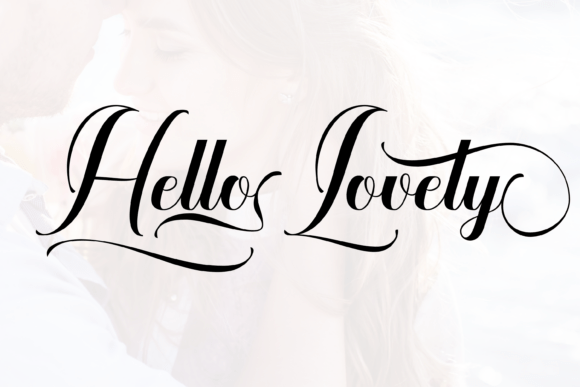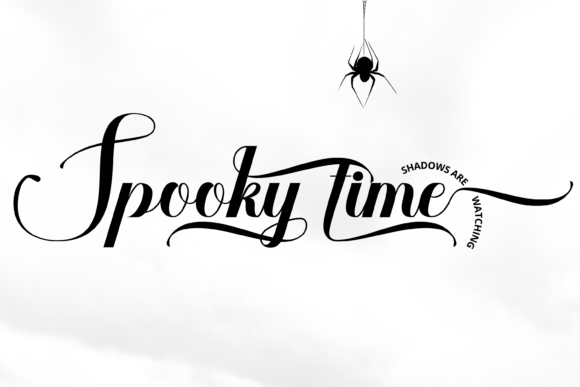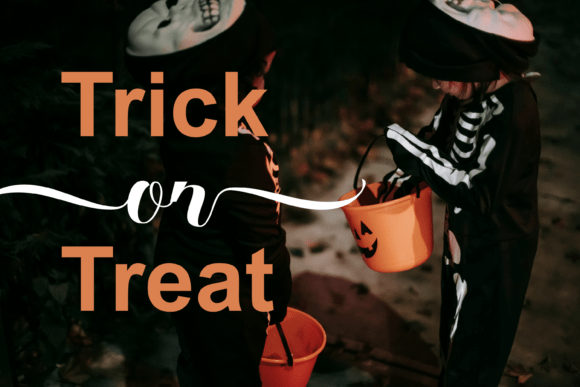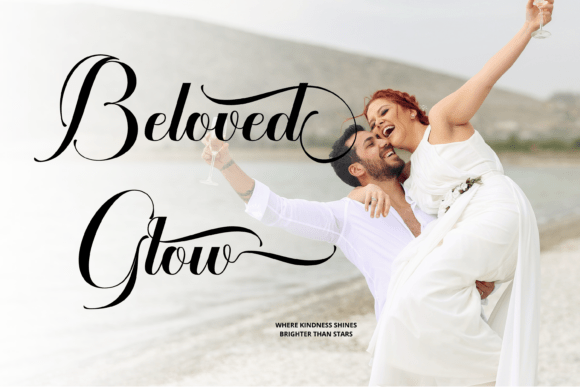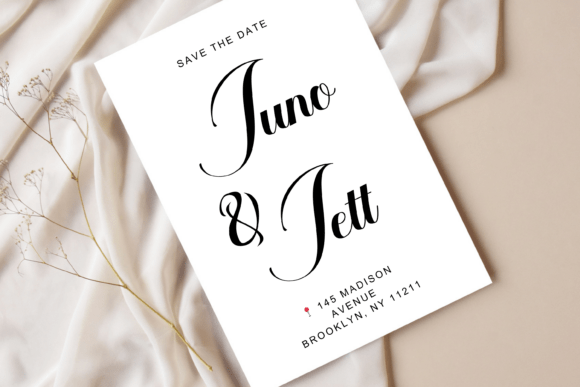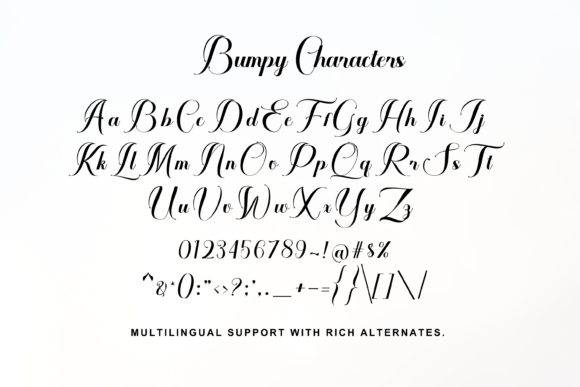
Introducing Bumpy Font: Elevate Your Designs with Modern Calligraphy
In the world of typography, fonts play a crucial role in conveying the tone and personality of a design. For designers and crafters looking to add a touch of elegance and playfulness to their projects, Bumpy Font is an excellent choice. This beautifully crafted font combines modern calligraphy with a warm and confident aesthetic, making it perfect for a wide range of creative endeavors.
The Unique Charm of Bumpy Font
Bumpy Font stands out with its bold yet soft and playful characters. Each letter is carefully designed to bring a sense of authenticity to your designs, whether you’re working on invitations, posters, branding, packaging, or even print-on-demand products. The font’s elegant yet fun style strikes the perfect balance between sophistication and energy, allowing you to add a personal touch to all your creative projects.
Key Features of Bumpy Font
- Modern Calligraphy: Bumpy Font boasts a touch of modern calligraphy that flows naturally, giving your designs a warm and inviting feel.
- Bold yet Soft: The font’s bold characters are balanced with soft and playful elements, creating a unique visual appeal that captures attention.
- Versatile: Bumpy Font is perfect for various creative projects, including invitations, posters, branding, packaging, and print-on-demand products.
- Elegant yet Fun: The font’s style is both elegant and fun, making it suitable for a wide range of design applications.
Use Cases for Bumpy Font
Bumpy Font is incredibly versatile and can be used in numerous design projects. Here are some ideas to get you started:
- Invitations: Add a touch of elegance and playfulness to your wedding invitations, birthday party invites, or any other special occasion.
- Posters: Create eye-catching posters for events, promotions, or advertisements with Bumpy Font’s bold and playful characters.
- Branding: Establish a strong brand identity with Bumpy Font’s unique and memorable style.
- Packaging: Make your product packaging stand out with Bumpy Font’s elegant and fun design.
- Print-on-Demand Products: Add a personal touch to your print-on-demand products, such as t-shirts, mugs, or phone cases, with Bumpy Font’s creative style.
Why Choose Bumpy Font?
Bumpy Font is more than just a font – it’s an expression of style that balances elegance and energy. By choosing Bumpy Font, you can:
- Elevate Your Designs: Add a touch of sophistication and playfulness to your designs.
- Stand Out: Create unique and memorable designs that capture attention.
- Save Time: Use Bumpy Font’s versatile style to streamline your design process.
Bumpy Font is an excellent choice for designers and crafters looking to add a touch of modern calligraphy to their designs. With its bold yet soft and playful characters, Bumpy Font is perfect for a wide range of creative projects. Whether you’re working on invitations, posters, branding, packaging, or print-on-demand products, Bumpy Font is sure to elevate your designs and help you stand out. So why wait? Try Bumpy Font today and experience the perfect balance of elegance and energy in your designs.